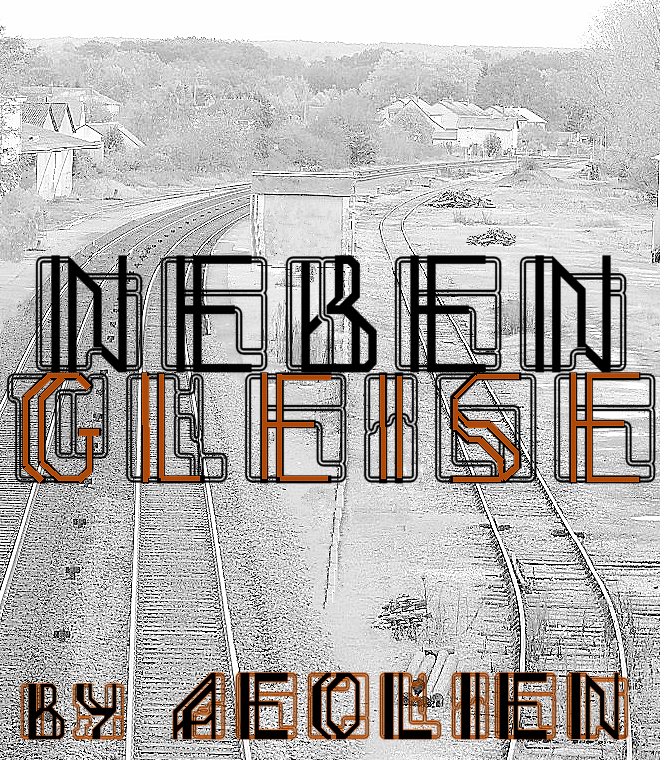
• Something "fun". Inspired by the many journeys I've made and by train travels. And by my grandchildren's train toys. The angular design echoes small table tops we sometimes use to put the tracks on ...
UC is normal weight and is used in the sampler (font name). LC has some thicker lines for increased legibility although this font is only meant to illustrate concepts (travel, finding new ways, diversification etc) or for logos, shop signs, invitations and similar. Not simple enough for use in anything long or complex that has to be easily read.
@ ecluniverso and @ jirinvk: thank you! Glad you like the look of this design. In a few days I'll add a few very basic punctuation marks, and if numbers are useful for this design I'll add 0 to 9.
A could be nudged a little bit closer to the left line. Or maybe it was ment this way, nice design!
@ Yautia: thank you  :) @FTrex: You're right to mention "A" had a problem> I hadn't changed the original shape to show rails on the left *sigh* Thanks for pointing it out ! :) Shame I can't exchange the sampler for an updated one :(
Very interesting with a unique feel. I like how outline rounded and its opposite filled squared are combined together in harmony. Well done, as always!
I want to separate them and make 2 fonts.  LOL
@architaraz: thank you @SD: yes, lol. I did think of the UC style applied to 'real' LC. Maybe one  day. I tried a positive-negative version but the lines' thicknesses for 45° don't match those of the horizontals/verticals :/
Numbers are done. Also a handful of useful ;) other glyphs
I love this, and, I'm with DP—these would work very well as separate fonts. :)
I found errors in 3 glyphs (9, ", ?)...
plus one more on the N...
Changed shapes of numbers, added MoreLatin.